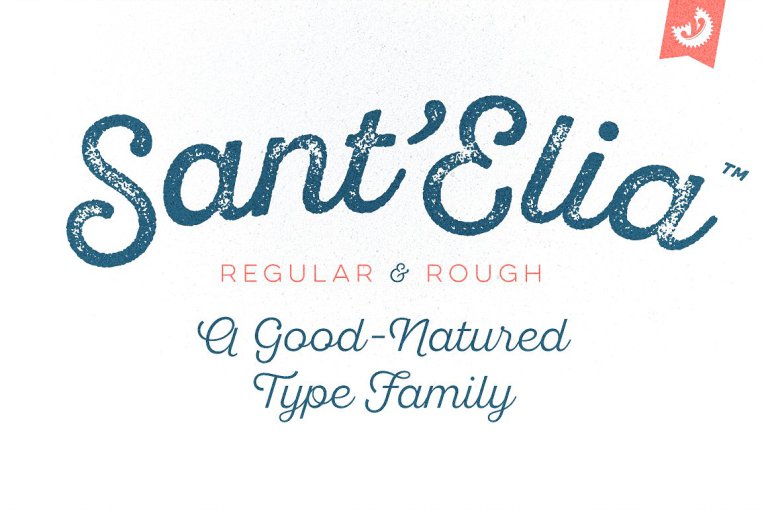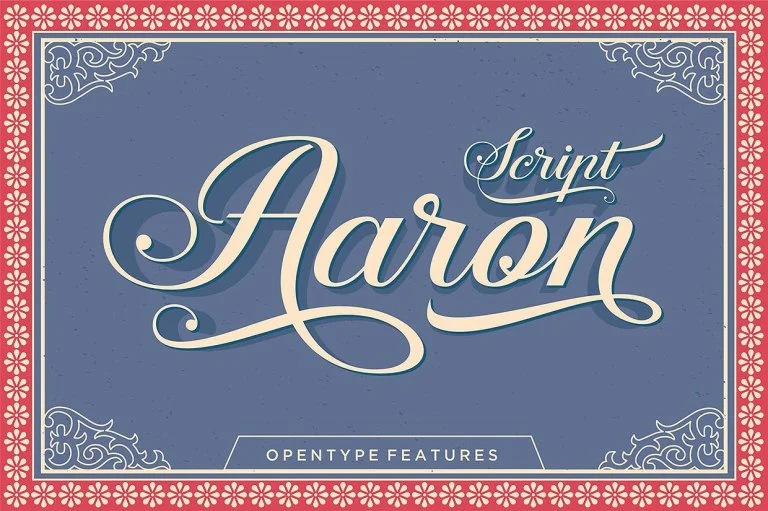
Download Font Script Premium Free Best Fonts. This collection now includes 124 original font families (we started a year ago with only 54 font families), with a total of 1,577 fonts in all. this article is dedicated to script fonts. Script typefaces are based upon the varied and often fluid stroke created by handwriting, pretty much like the cursive fonts just typically more elegant. Script fonts aren't seen in business much except for some big company logos. Web designers who create sites for companies in the wedding industry sector might find that a script font conveys a premium quality brand image for the business. Download and install free script fonts of the best quality from free fonts and use on your own personal and business related design purposes. They are organized into highly regular formal types similar to cursive writing and looser, more casual scripts. You will find quite a bunch of them here, featured and ready for immediate download. Font name newest most downloads. They're meant to mimic handwritten text in historic and modern styles so the user can use elegant handwritten styles we're going to list 18 of our favorite free and premium script fonts here to give you a leg up on your next web design project. Demo donationware free free for personal use public domain, gpl, ofl shareware. They are used in print items that require a personal touch. Britania font, calligraphy font, handwritten font, personal font, script font. Script fonts are fonts with handwritten or calligraphic styles. The best selection of script fonts for windows and macintosh.
They are organized into highly regular formal types similar to cursive writing and looser, more casual scripts. Demo donationware free free for personal use public domain, gpl, ofl shareware. Serif, display, handwriting, headings, brush and non serif. Brighten up all your crafting projects with this unique, festive and bold typeface! Font name newest most downloads. Script fonts aren't seen in business much except for some big company logos. This font is free for.
Pin On Script Handwritten Fonts. this article is dedicated to script fonts. Script fonts are fonts with handwritten or calligraphic styles. Web designers who create sites for companies in the wedding industry sector might find that a script font conveys a premium quality brand image for the business. This collection now includes 124 original font families (we started a year ago with only 54 font families), with a total of 1,577 fonts in all. They are used in print items that require a personal touch. Britania font, calligraphy font, handwritten font, personal font, script font. They are organized into highly regular formal types similar to cursive writing and looser, more casual scripts. Script typefaces are based upon the varied and often fluid stroke created by handwriting, pretty much like the cursive fonts just typically more elegant. They're meant to mimic handwritten text in historic and modern styles so the user can use elegant handwritten styles we're going to list 18 of our favorite free and premium script fonts here to give you a leg up on your next web design project. Font name newest most downloads. Script fonts aren't seen in business much except for some big company logos. You will find quite a bunch of them here, featured and ready for immediate download. Download and install free script fonts of the best quality from free fonts and use on your own personal and business related design purposes. The best selection of script fonts for windows and macintosh. Demo donationware free free for personal use public domain, gpl, ofl shareware.
20 Free Script Fonts You Can Download Hongkiat. this article is dedicated to script fonts. They are used in print items that require a personal touch. Script fonts are fonts with handwritten or calligraphic styles. Font name newest most downloads. This collection now includes 124 original font families (we started a year ago with only 54 font families), with a total of 1,577 fonts in all. Web designers who create sites for companies in the wedding industry sector might find that a script font conveys a premium quality brand image for the business. The best selection of script fonts for windows and macintosh. Script fonts aren't seen in business much except for some big company logos. Download and install free script fonts of the best quality from free fonts and use on your own personal and business related design purposes. They are organized into highly regular formal types similar to cursive writing and looser, more casual scripts. You will find quite a bunch of them here, featured and ready for immediate download. Britania font, calligraphy font, handwritten font, personal font, script font. Script typefaces are based upon the varied and often fluid stroke created by handwriting, pretty much like the cursive fonts just typically more elegant. Demo donationware free free for personal use public domain, gpl, ofl shareware. They're meant to mimic handwritten text in historic and modern styles so the user can use elegant handwritten styles we're going to list 18 of our favorite free and premium script fonts here to give you a leg up on your next web design project.
18 Beautiful Free Premium Script Fonts Elegant Themes Blog. They are organized into highly regular formal types similar to cursive writing and looser, more casual scripts. They are used in print items that require a personal touch. Script typefaces are based upon the varied and often fluid stroke created by handwriting, pretty much like the cursive fonts just typically more elegant. Font name newest most downloads. Script fonts are fonts with handwritten or calligraphic styles. this article is dedicated to script fonts. This collection now includes 124 original font families (we started a year ago with only 54 font families), with a total of 1,577 fonts in all. The best selection of script fonts for windows and macintosh. Web designers who create sites for companies in the wedding industry sector might find that a script font conveys a premium quality brand image for the business. Demo donationware free free for personal use public domain, gpl, ofl shareware. Britania font, calligraphy font, handwritten font, personal font, script font. Script fonts aren't seen in business much except for some big company logos. They're meant to mimic handwritten text in historic and modern styles so the user can use elegant handwritten styles we're going to list 18 of our favorite free and premium script fonts here to give you a leg up on your next web design project. Download and install free script fonts of the best quality from free fonts and use on your own personal and business related design purposes. You will find quite a bunch of them here, featured and ready for immediate download.
20 Free Script Fonts You Can Download Hongkiat. This collection now includes 124 original font families (we started a year ago with only 54 font families), with a total of 1,577 fonts in all. You will find quite a bunch of them here, featured and ready for immediate download. Script fonts are fonts with handwritten or calligraphic styles. Web designers who create sites for companies in the wedding industry sector might find that a script font conveys a premium quality brand image for the business. Demo donationware free free for personal use public domain, gpl, ofl shareware. Download and install free script fonts of the best quality from free fonts and use on your own personal and business related design purposes. Script typefaces are based upon the varied and often fluid stroke created by handwriting, pretty much like the cursive fonts just typically more elegant. They're meant to mimic handwritten text in historic and modern styles so the user can use elegant handwritten styles we're going to list 18 of our favorite free and premium script fonts here to give you a leg up on your next web design project. this article is dedicated to script fonts. They are organized into highly regular formal types similar to cursive writing and looser, more casual scripts. Script fonts aren't seen in business much except for some big company logos. They are used in print items that require a personal touch. Font name newest most downloads. Britania font, calligraphy font, handwritten font, personal font, script font. The best selection of script fonts for windows and macintosh.
Can make it easier to convey the message in your design and create.
Free Font Bundle V3 Bundle Creative Fabrica. They're meant to mimic handwritten text in historic and modern styles so the user can use elegant handwritten styles we're going to list 18 of our favorite free and premium script fonts here to give you a leg up on your next web design project. This collection now includes 124 original font families (we started a year ago with only 54 font families), with a total of 1,577 fonts in all. Download and install free script fonts of the best quality from free fonts and use on your own personal and business related design purposes. Web designers who create sites for companies in the wedding industry sector might find that a script font conveys a premium quality brand image for the business. Font name newest most downloads. this article is dedicated to script fonts. They are organized into highly regular formal types similar to cursive writing and looser, more casual scripts. Script fonts are fonts with handwritten or calligraphic styles. Britania font, calligraphy font, handwritten font, personal font, script font. You will find quite a bunch of them here, featured and ready for immediate download. Script typefaces are based upon the varied and often fluid stroke created by handwriting, pretty much like the cursive fonts just typically more elegant. The best selection of script fonts for windows and macintosh. Demo donationware free free for personal use public domain, gpl, ofl shareware. Script fonts aren't seen in business much except for some big company logos. They are used in print items that require a personal touch.
Looking to add an urban edge to your next project?
They are widely used for text to give expressive or personal touch. Browse thousands of free fonts to download from a unique collection of the best and new typefaces. Script fonts are fonts with handwritten or calligraphic styles. Browse by alphabetical listing, by style, by author or by popularity. This collection now includes 124 original font families (we started a year ago with only 54 font families), with a total of 1,577 fonts in all. Can make it easier to convey the message in your design and create. Including serif, sans serif, script, display, brush and grotesque. It does not matter whether the design involves typography or not because the results will come out just fine. Some fonts provided are trial versions of full versions and may not allow. They are used in print items that require a personal touch.